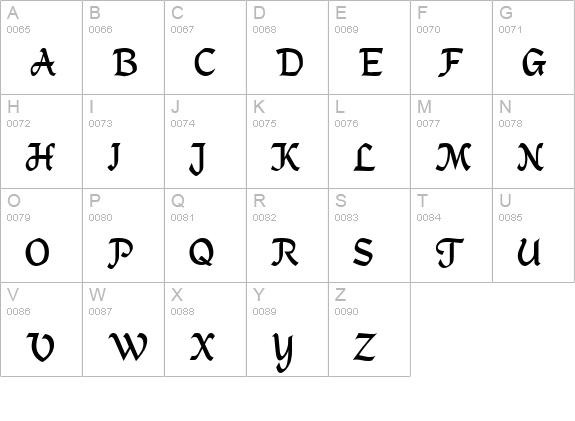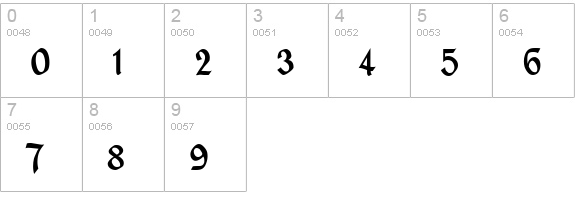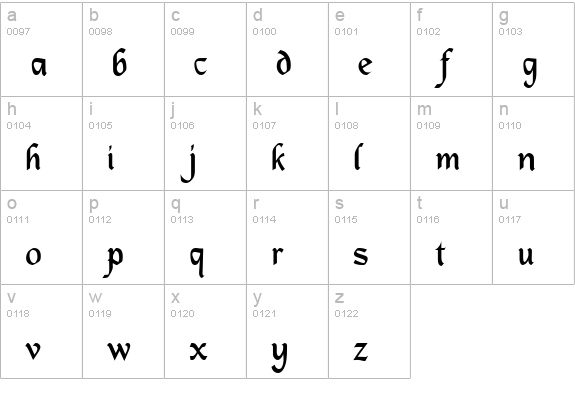
DS_Mysticora Font Details
DS_Mysticora is a beautifully crafted and elegant font that combines elements of mystery and allure. With its intricate details and flowing curves, this font exudes a sense of magic and mystique. Perfect for adding a touch of sophistication to any design project, DS_Mysticora is sure to captivate and enchant your audience. The best part is that DS_Mysticora is available for free download at FontsMarket.com. So, whether you're working on a branding project, creating stunning graphics, or designing a mystical-themed website, this font is a must-have in your collection. Don't miss out on the opportunity to elevate your designs with the enchanting charm of DS_Mysticora. Download it today and let your creativity soar.